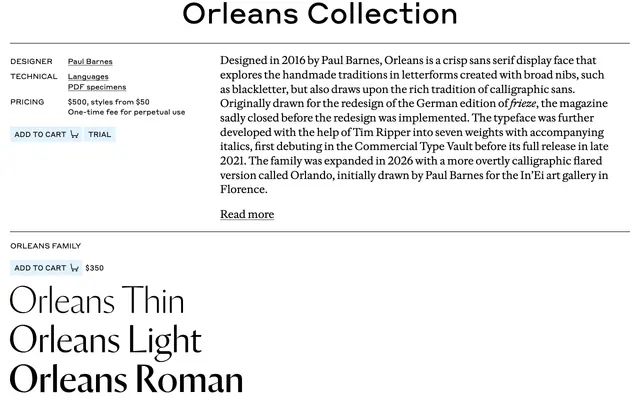
Orleans
Commercial Type · Paul Barnes · 2016
Orleans specimen from Commercial Type
A crisp seven-weight calligraphic display sans by Paul Barnes, originally drawn for the German edition of frieze and released through the Commercial Type Vault.
A display sans drawn by Paul Barnes in 2016, with broad-nib calligraphic logic running through its skeleton. Fourteen styles span Thin, Light, Roman, Medium, Bold, Black and Fat with matching italics, plus a variable axis. Drawn originally for a planned redesign of the German edition of frieze, then developed with Tim Ripper and released through the Commercial Type Vault before its full release in late 2021. Suits magazine mastheads, fashion and cultural identity work.
Commercial Type describe Orleans as a crisp display sans drawing on broad-nib calligraphic traditions, including blackletter, and the wider tradition of calligraphic sans serifs. Originally drawn for a redesign of the German edition of frieze.